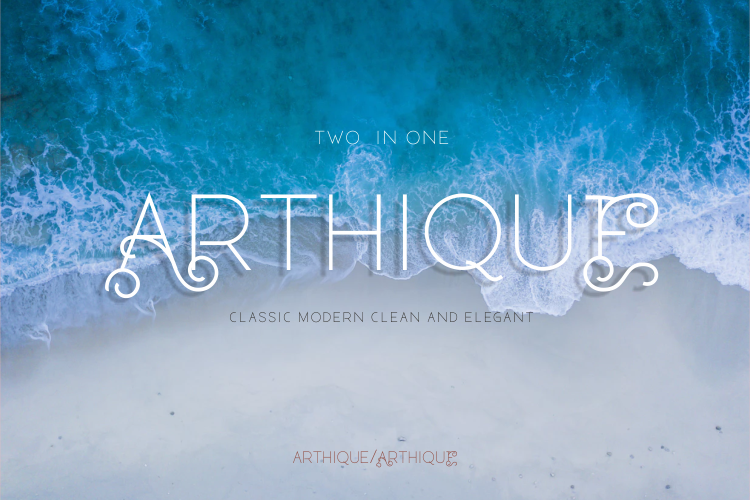
ARTHIQUE ELEGANT FONT
ARTHIQUE-Bold
ARTHIQUE-Light
Hello, This is our newest font. ARTHIQUE represents antique and artistic words, is a thin and standard sans serief font, so this font has the style of ELEGANT and ANTIQUE characters because in the alternative UPPERCASE the font changes to Ornamental on each letter character. designs that require ELEGANT fonts, Logo Design, Fashion, Boutique, Letterhead, and other graphic needs.Opentype feature :
• Salt
• ss01 -ss02 graphic ornaments
• Ligature and international language support.